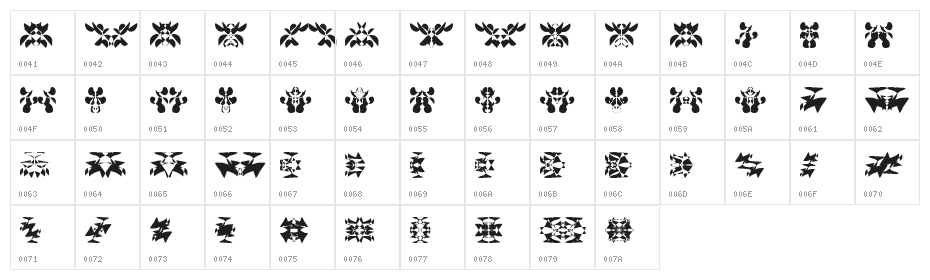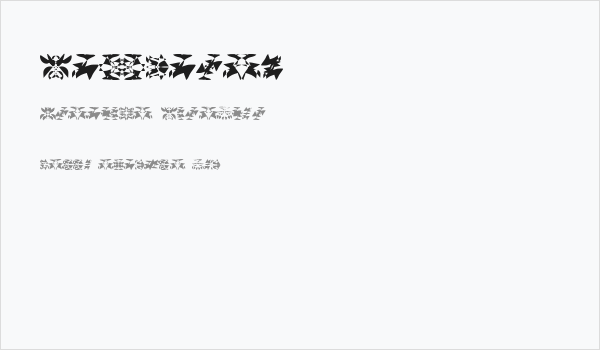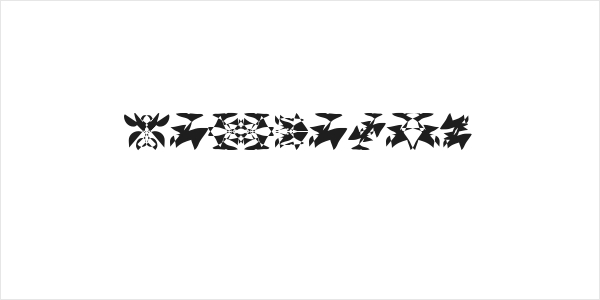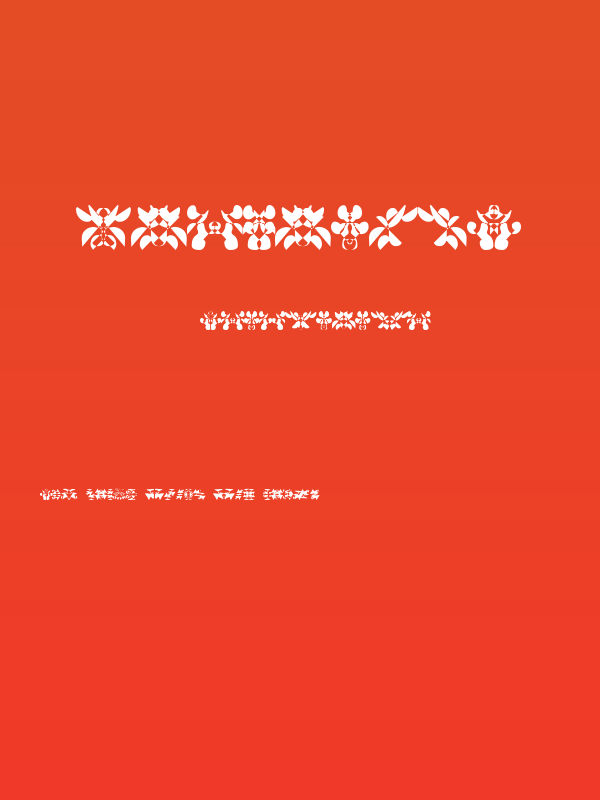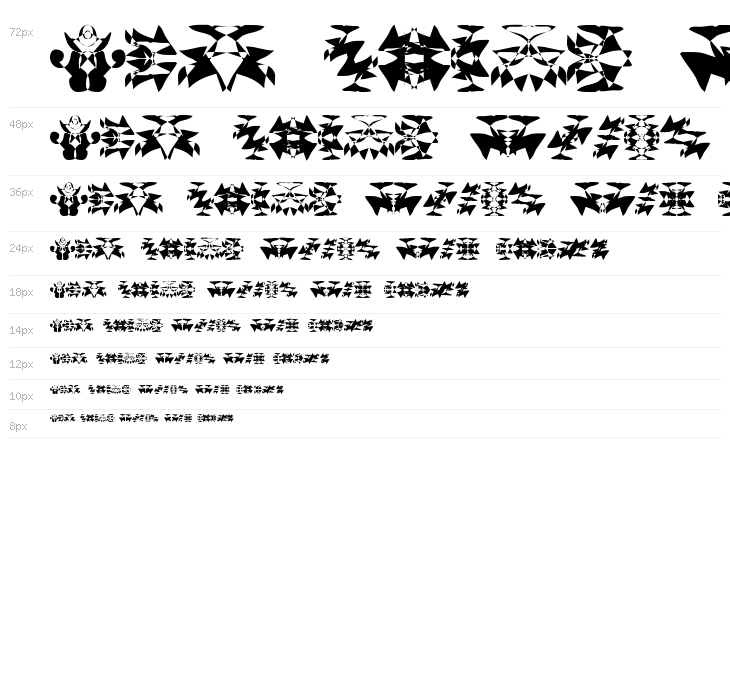
Daymares Font
| Anwendungsfall | Artistic designs, decorative elements. |
| Vorgeschlagene Projekte | Ideal for artistic projects, abstract art pieces, or as a decorative element in graphic design. |